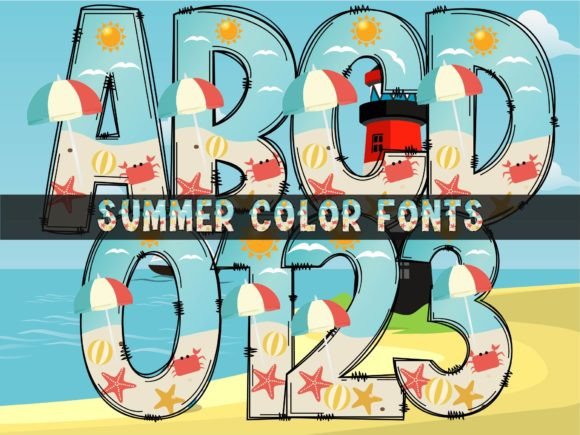
Introducing Summer Font, the ultimate solution for all your vacation, summer, and holiday-themed projects! Created by Color Alphabet, this font is designed to add a fun and friendly touch to your creative projects.
Summer Font is a colorful display font that will make your projects stand out. It is the best text font for PDF, making your documents more engaging and attractive. With its unique and playful design, Summer Font is perfect for adding a touch of creativity to posters, t-shirts, invitations, and more.
This font family is not just eye-catching but also easy to read, ensuring that your message is conveyed effectively. Whether you're designing a travel brochure or creating a fun summer-themed card, Summer Font is the perfect choice.
Looking for a way to express your creativity and add a playful touch to your designs? Summer Font is the answer! With its bold and colorful design, this font will make your projects pop and grab your audience's attention.